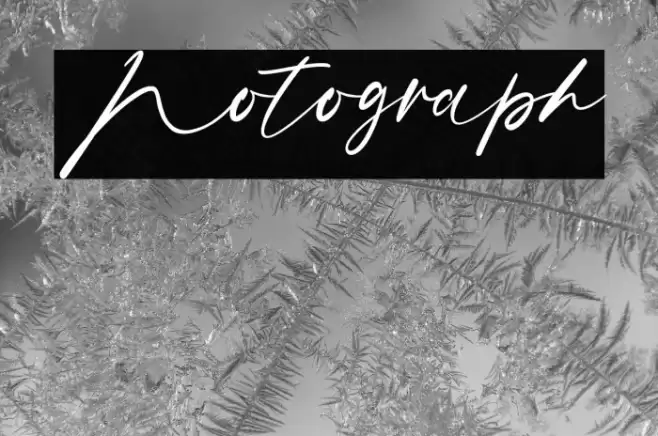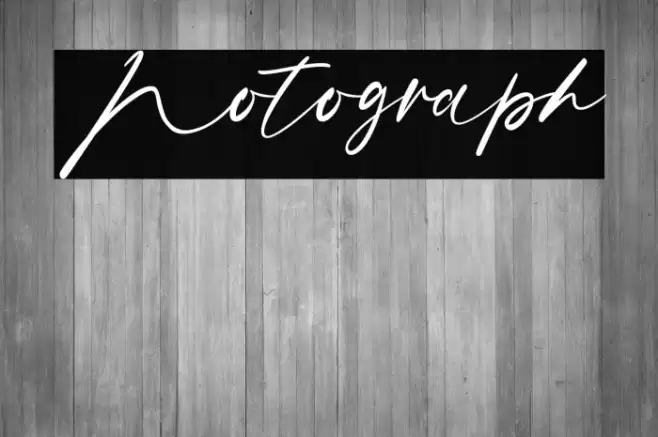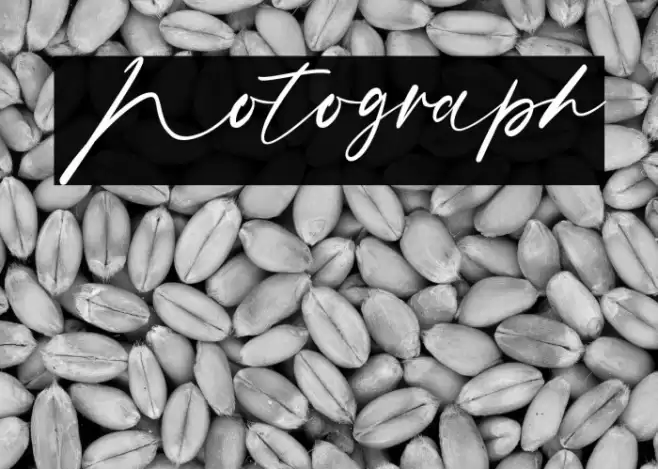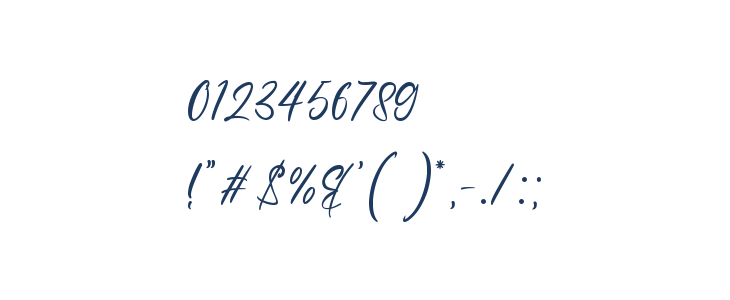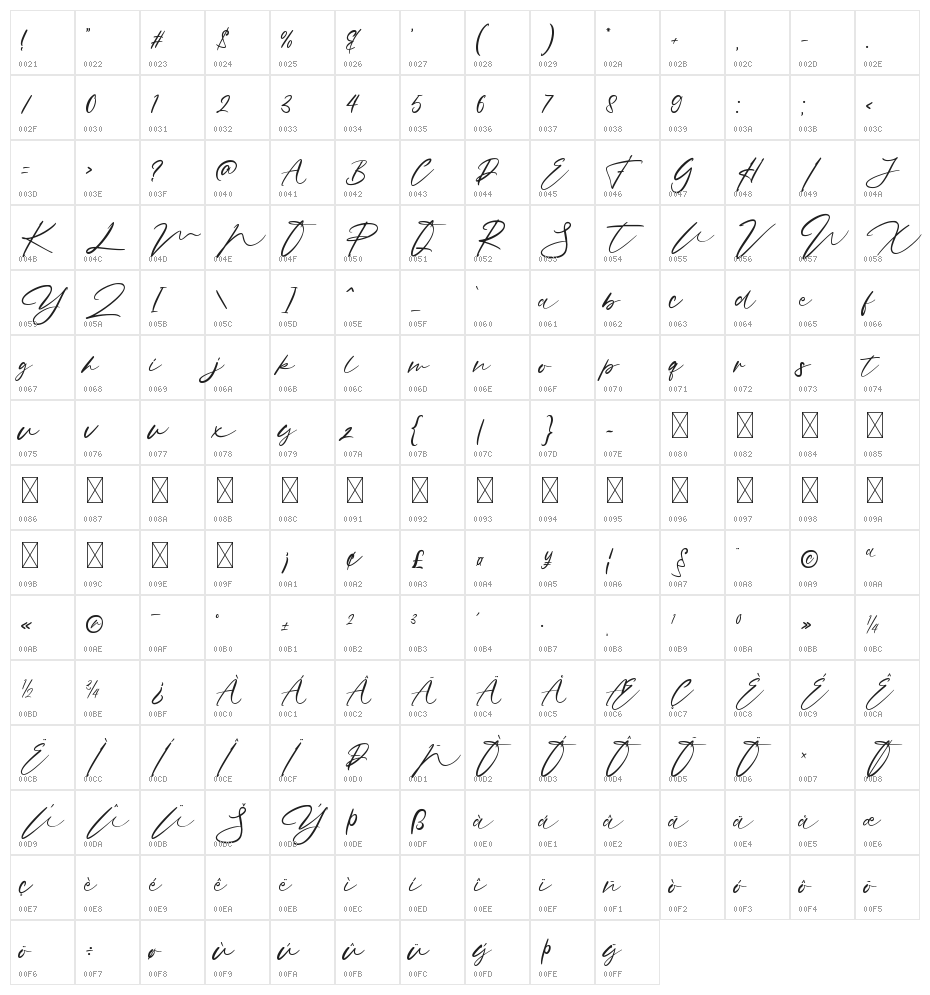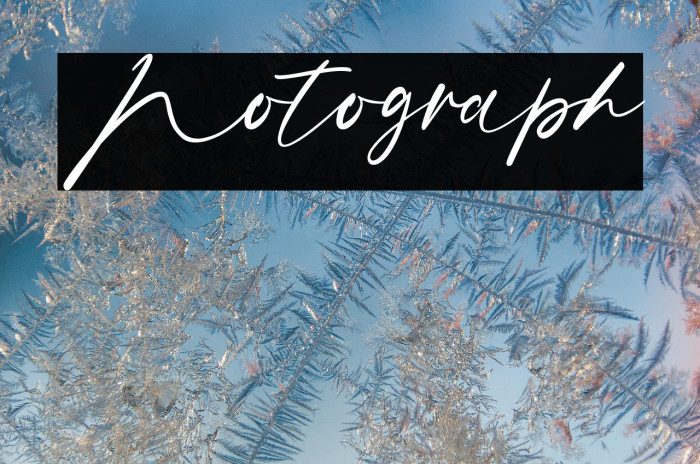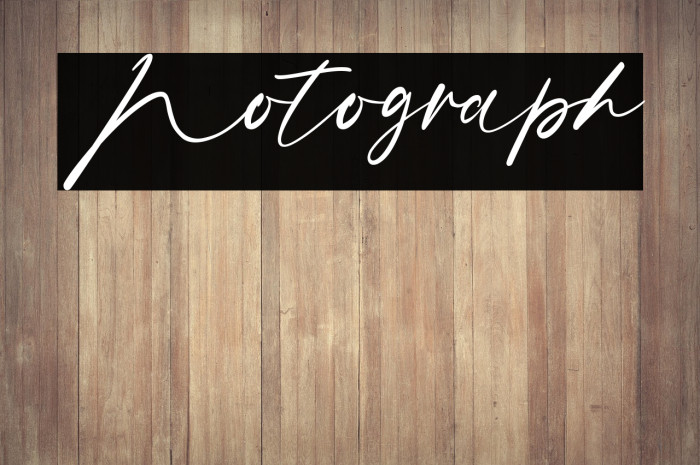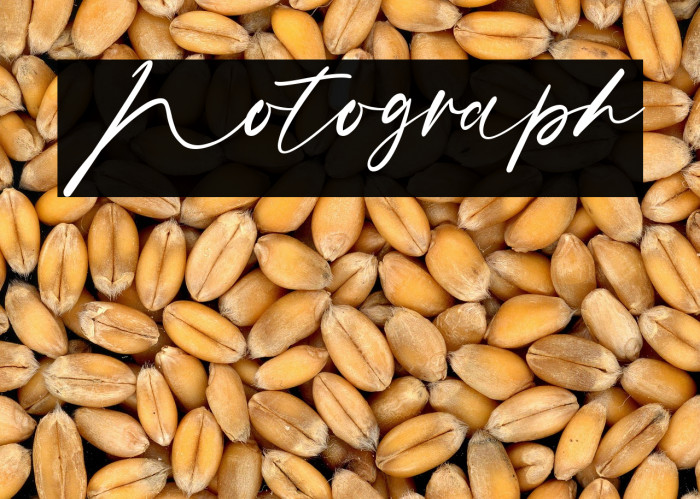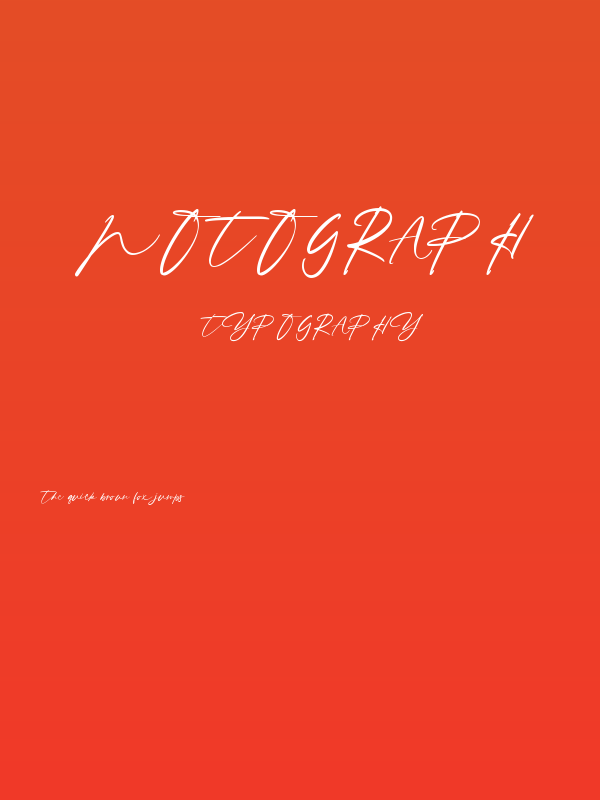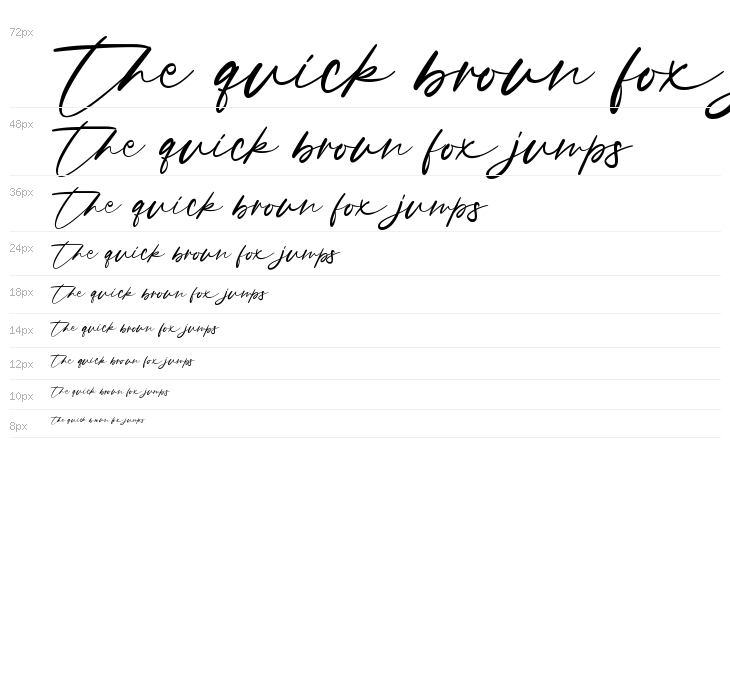
Notograph Font
Notograph Description
This font exudes a fluid and elegant handwritten style, characterized by its cursive script and smooth, flowing lines. The uppercase letters are slightly more formal, with a graceful slant and consistent stroke width, while the lowercase letters maintain a casual yet sophisticated appearance. The numerals are clear and legible, matching the overall aesthetic of the alphabet. Special characters are seamlessly integrated, enhancing the font's versatility. The overall design is both stylish and approachable, making it suitable for a variety of creative applications.
A fluid, elegant handwritten script with smooth, flowing lines from Regular fonts.
- Proposed Projects: Ideal for wedding invitations, greeting cards, personal branding, and elegant logos.
- Overall Style: Elegant, Handwritten
- Use Case: Logos, Invitations, Personal Branding